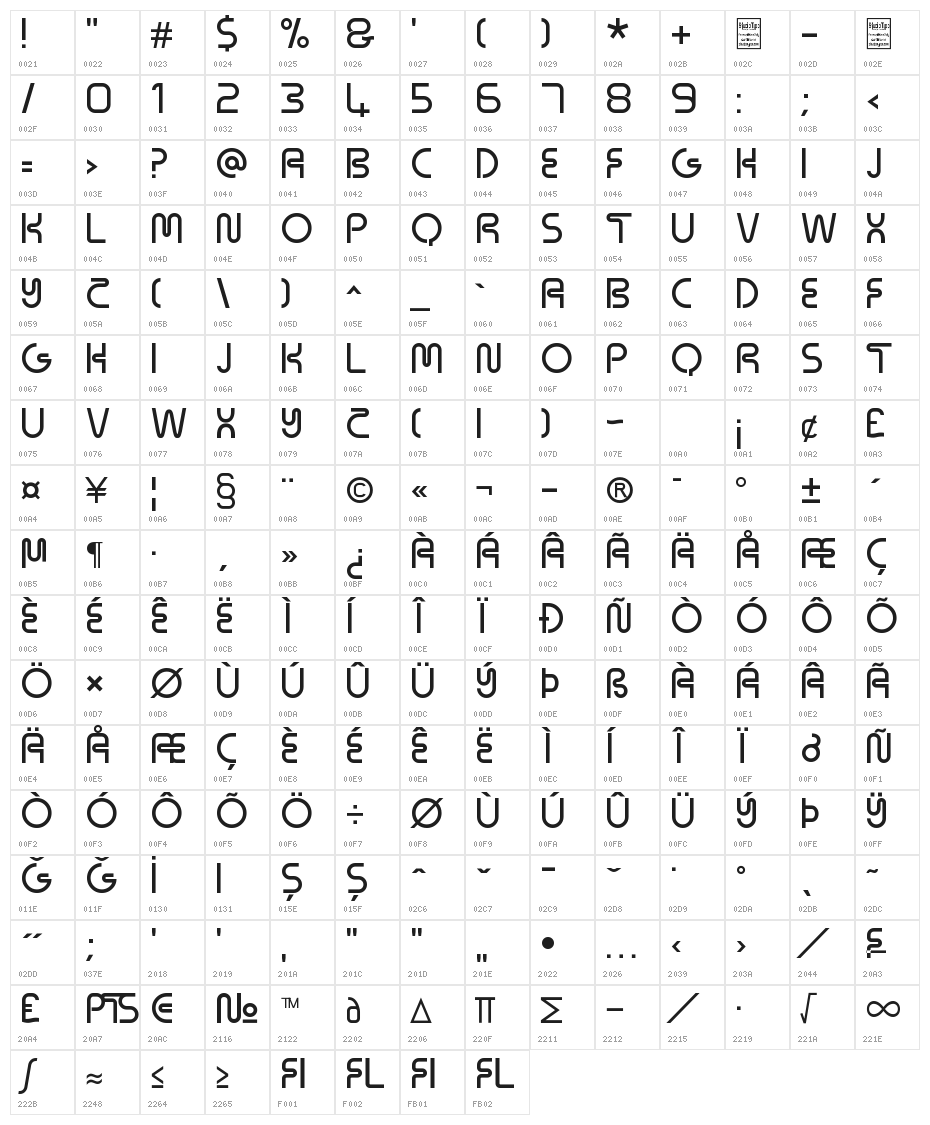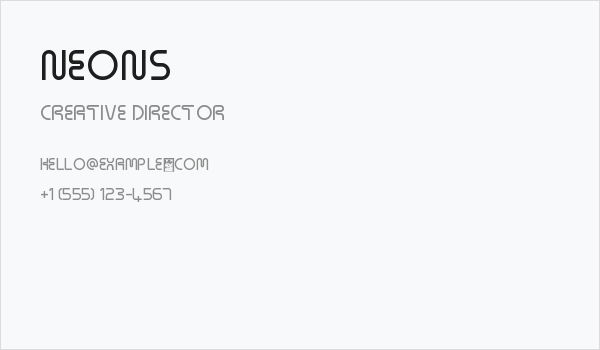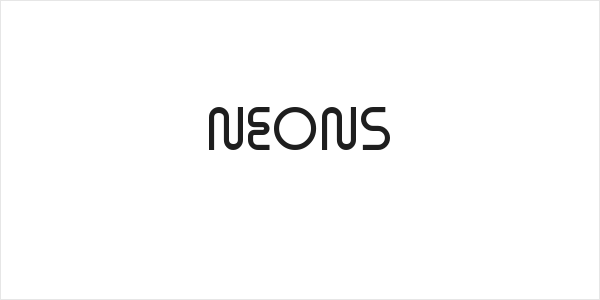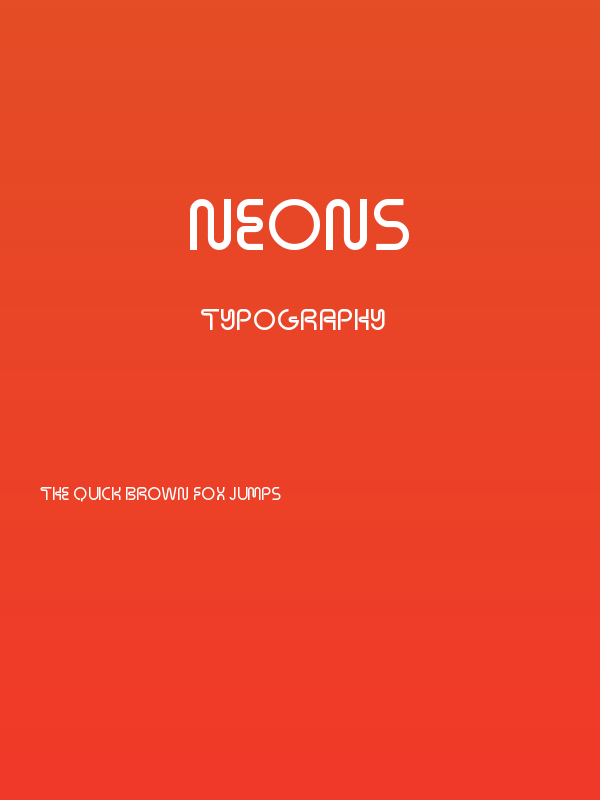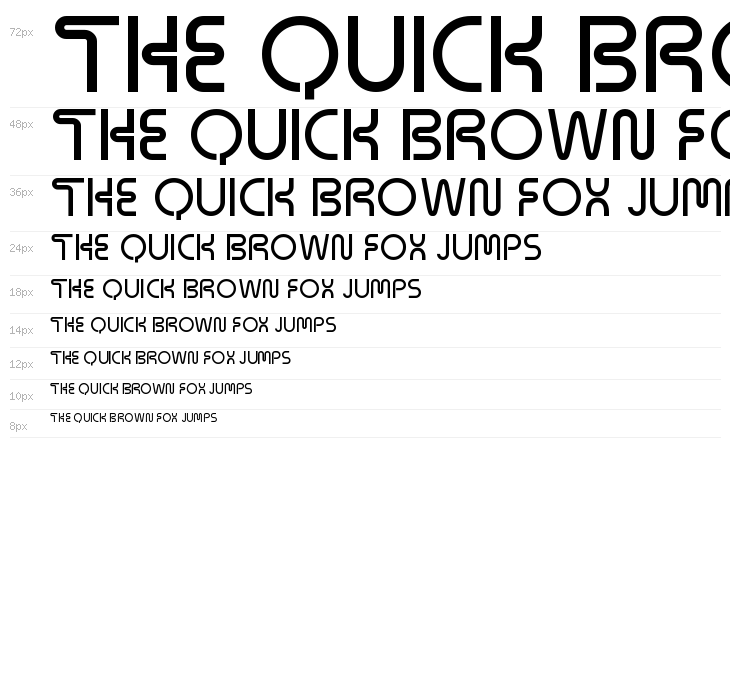
Neons Font
Neons Description
This font features a modern, geometric style with clean lines and rounded edges, creating a futuristic and sleek appearance. The characters are uniform in width, providing a balanced and cohesive look. The uppercase and lowercase letters maintain a consistent design, enhancing readability while adding a unique flair. The numerals and special characters follow the same design principles, ensuring a harmonious overall aesthetic. This font is well-suited for digital displays, branding, and projects that require a contemporary and stylish touch.
| Use Case | Headlines, Logos, Digital Displays |
| Proposed Projects | Ideal for digital displays, branding, advertising, and modern web design projects. |